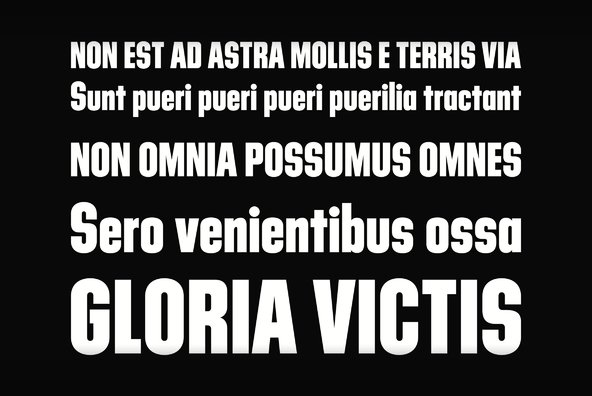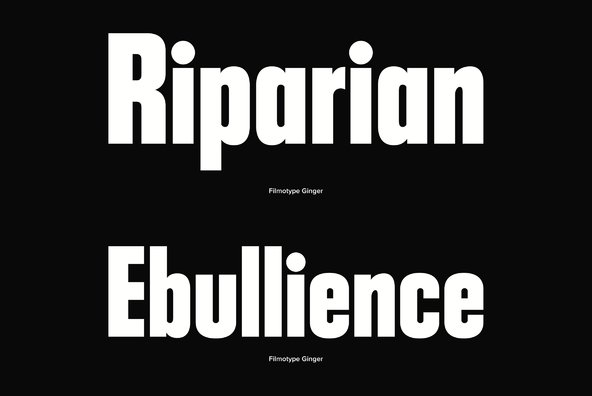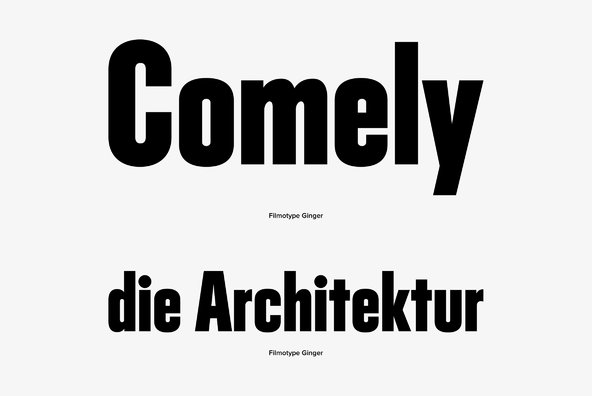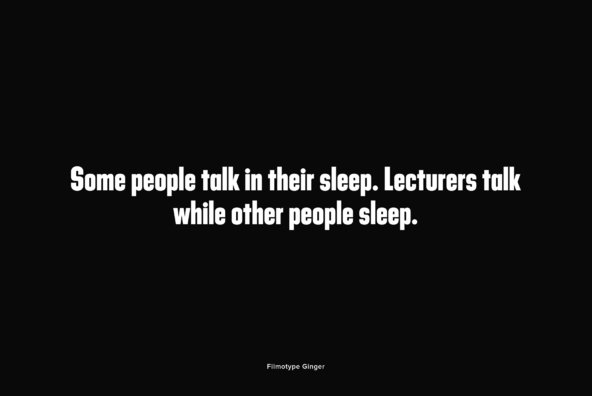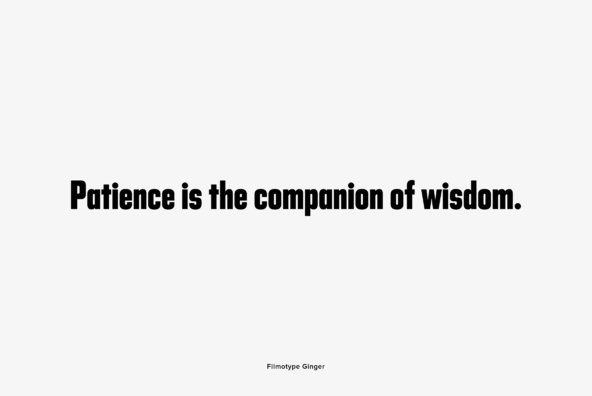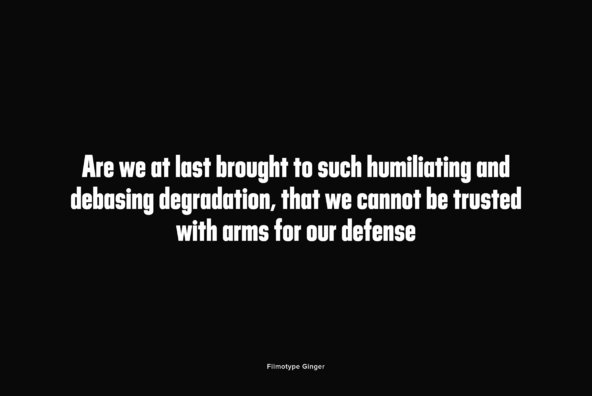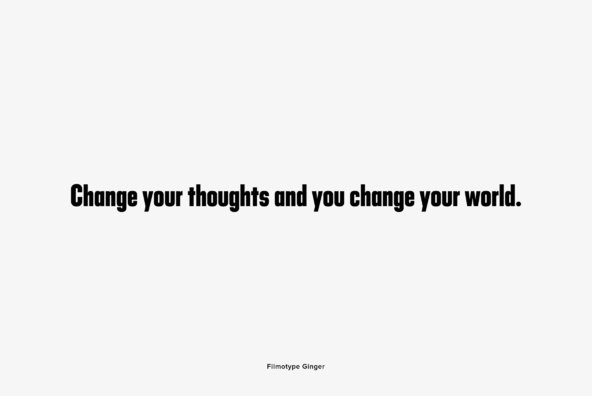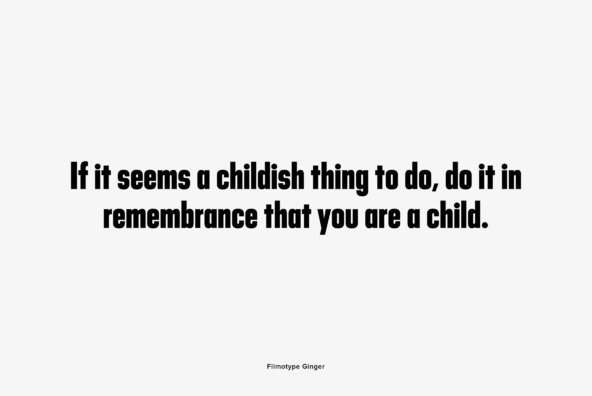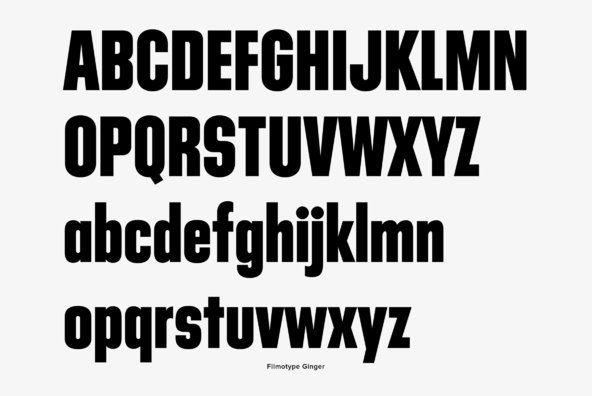
Initially designed in the early-to-mid 1950s, Filmotype Ginger helped usher in the Mod typographic stylings of the early 1960s visual aesthetic yet it retains a classic and timeless feel.
Remastered and expanded with exacting precision from the original filmstrips, Filmotype Ginger includes a full international character compliment, automatic fractionals, ordinals, and a suite of alternates in dynamic OpenType format.